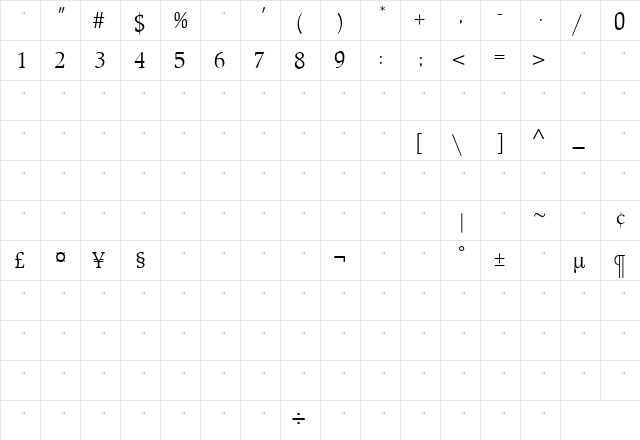
BeckenhamLightTab Roman
Design Context for BeckenhamLightTab Typeface
BeckenhamLightTab offers clean, dependable letterforms without strong stylistic allegiance, making it a practical choice for designers who need flexibility. The delicate stroke weight brings airiness and refinement to layouts.